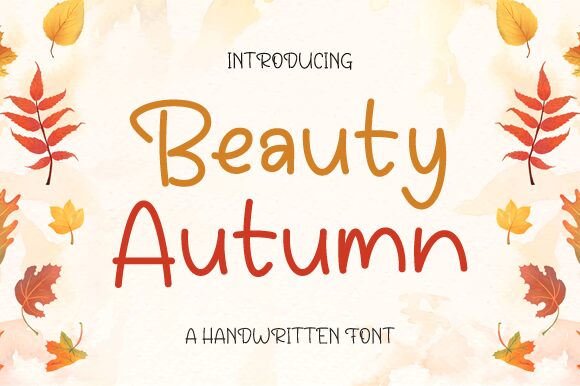
Beauty Autumn, a creation by Nirmala Creative, is a handwritten font that captures the essence of a personal touch with its semi-light weight and fluidity. Its elegant strokes are reminiscent of the gentle fall of autumn leaves, making it an ideal choice for designs that require a blend of warmth, intimacy, and sophistication. The distinct character shapes convey a natural and organic feel, allowing for legible yet decorative text.
The charm of Beauty Autumn lies in its versatility; it suits everything from wedding invitations to branding materials. This font's aesthetic appeal is enhanced by the subtle variation in stroke width, which adds depth and movement to each letter. Whether used for headers or body text, Beauty Autumn brings a bespoke quality to any creative project.